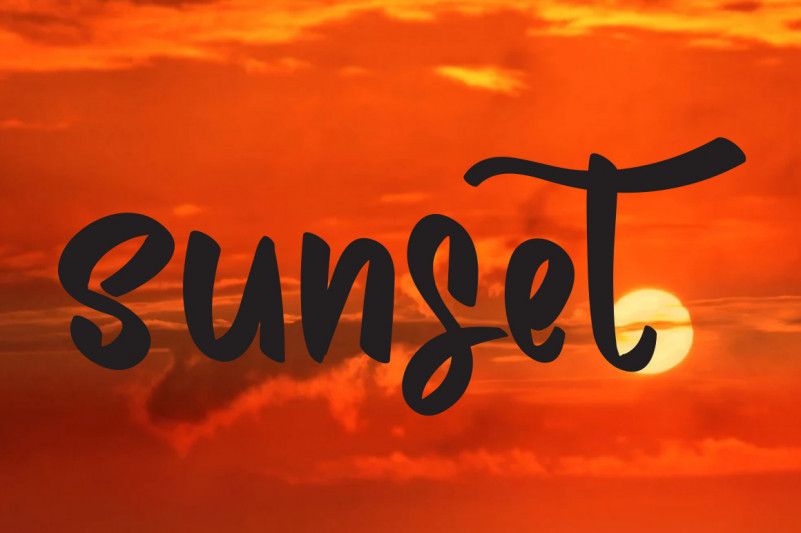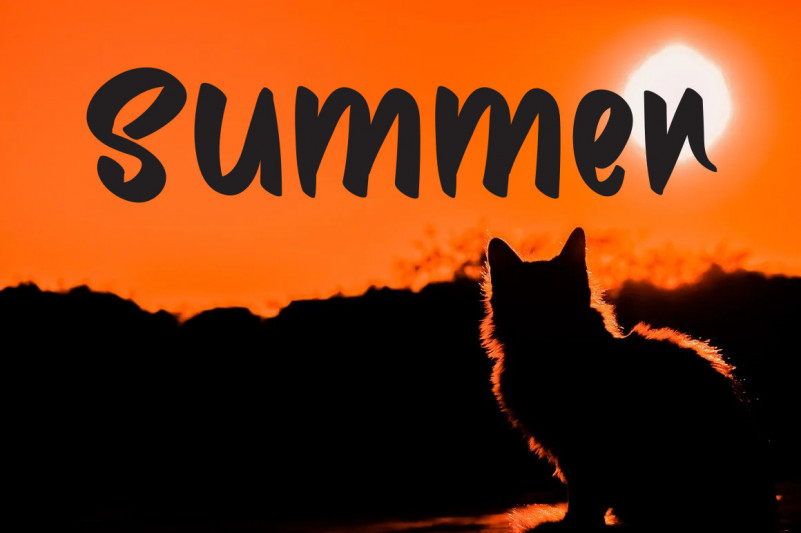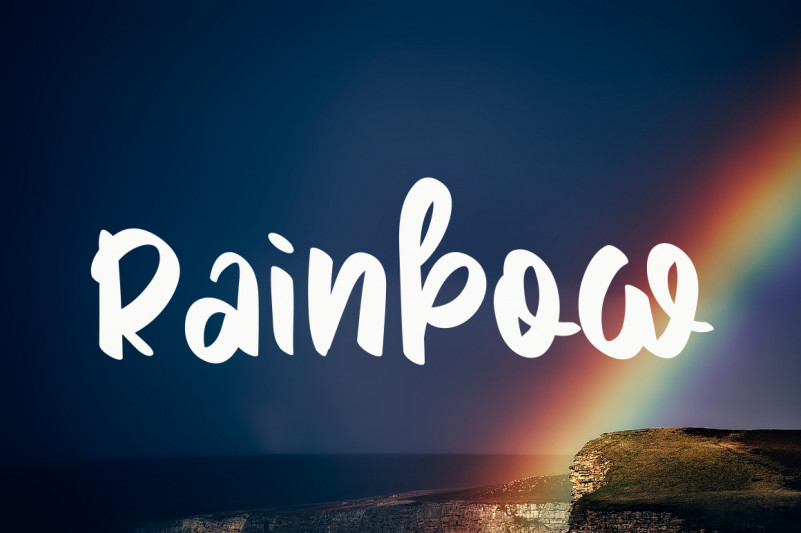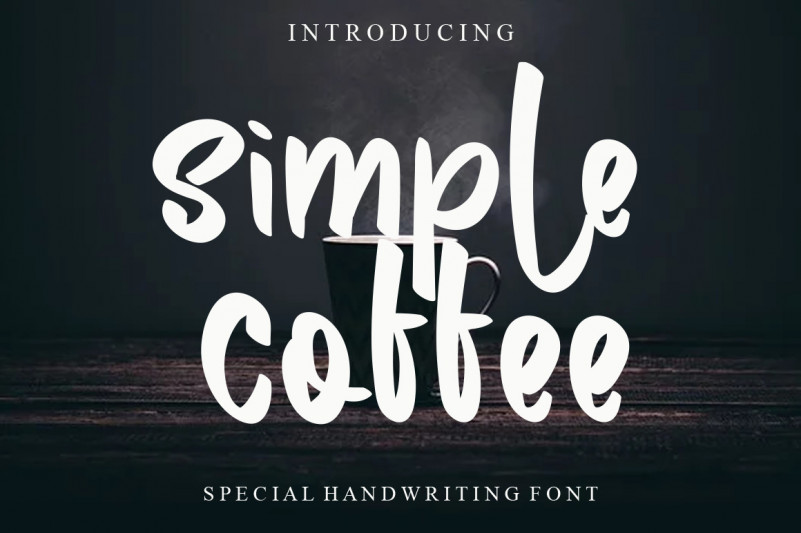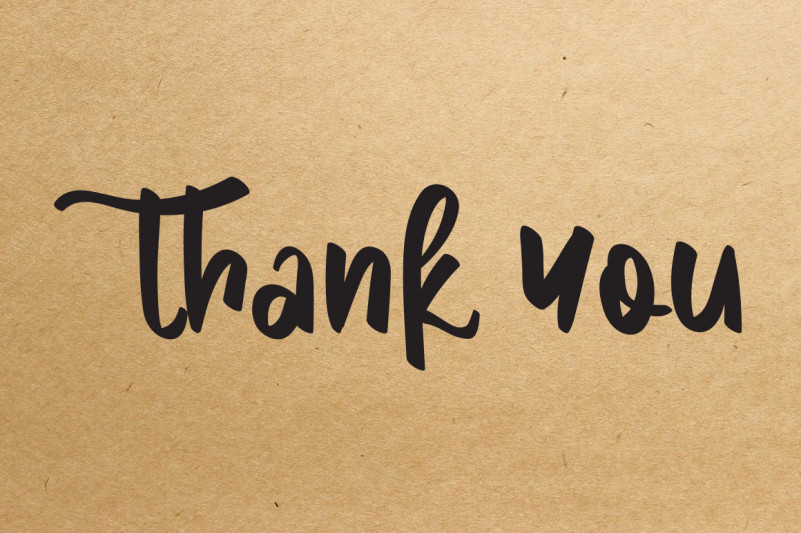
Simple Coffee Display Font
This is a friendly, fun and trendy looking handwritten font. Beautiful, clean and cursive, this font is here to make your creations seem out of this world! Fall in love with this font and use it in your most creative projects!